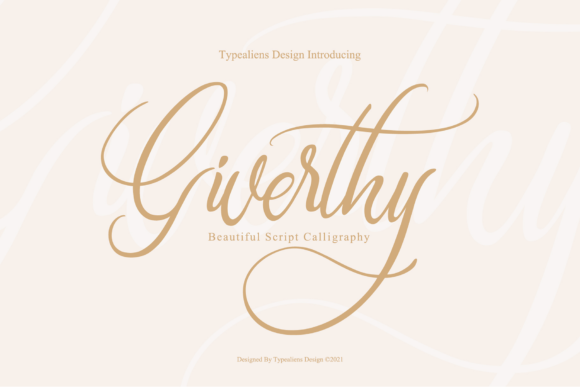
Introducing Giverthy Font, an exquisite script font that captures the essence of timeless elegance and modern flair. Inspired by the art of classic calligraphy, this font embodies a contemporary aesthetic, designed to elevate your creative projects to new heights.
With its impeccable form, Giverthy Font strikes a delicate balance between thin and thick strokes, creating a harmonious and visually captivating typeface. Each letter flows effortlessly into the next, exuding a sense of grace and sophistication.
Whether you're crafting elegant wedding invitations, heartfelt love letters, or sophisticated brand designs, Giverthy Font is the perfect choice to add a touch of timeless beauty to your creations. Its versatility extends beyond the page, making it an ideal font for digital designs, social media posts, and even custom jewelry.
Imagine your wedding vows penned in the enchanting script of Giverthy Font, etched into the bands of your wedding rings, symbolizing the unbreakable bond you share. Or, envision your beloved's name adorned on a necklace, forever etched in the timeless elegance of this extraordinary font.
With Giverthy Font, you have the power to transform ordinary words into extraordinary works of art. Its timeless appeal and contemporary charm will captivate your audience, leaving an indelible mark on their hearts and minds.